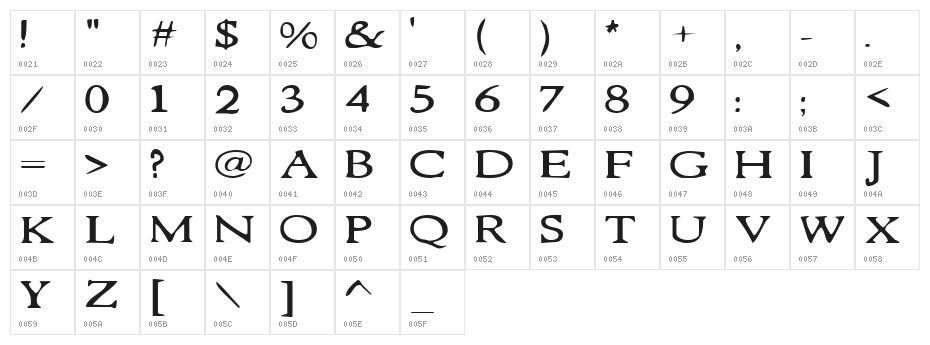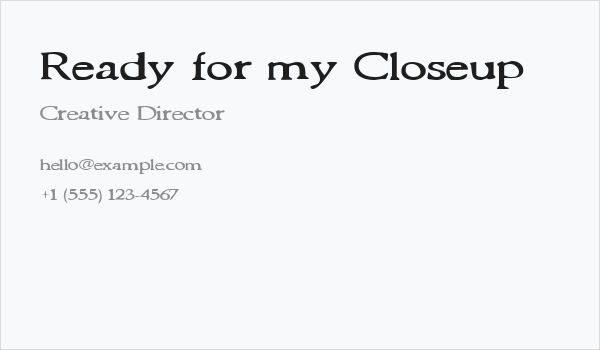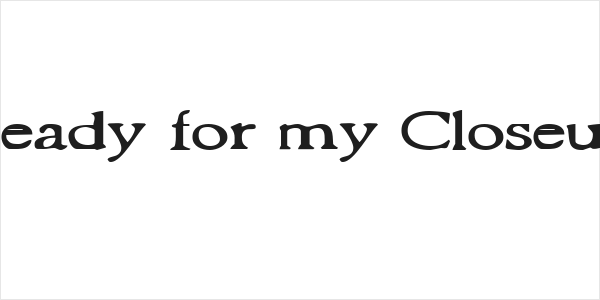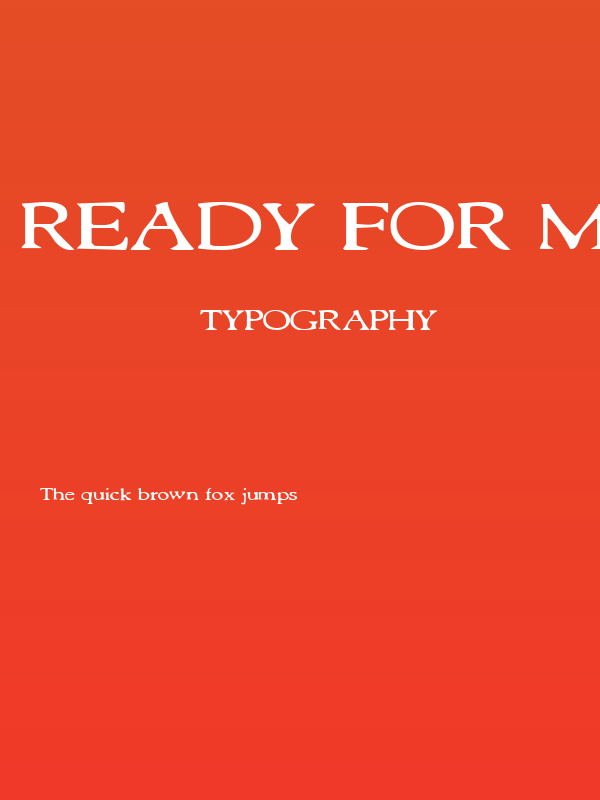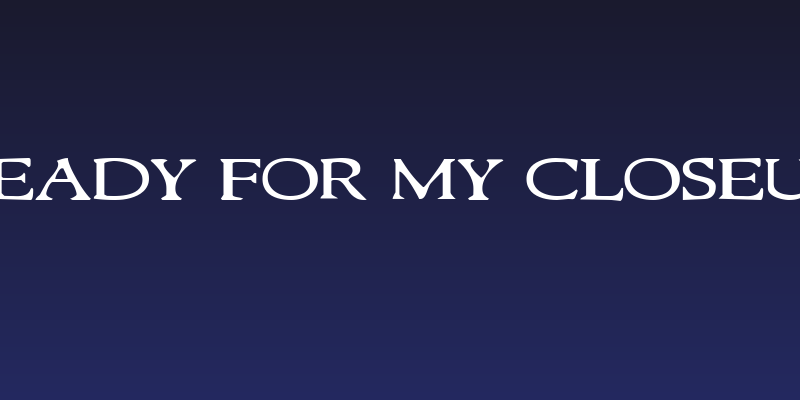
Ready for my Closeup Font
Ready for my Closeup Description
This font features a classic serif style with elegant and slightly exaggerated serifs that give it a sophisticated and timeless appearance. The uppercase letters are bold and commanding, while the lowercase letters maintain a consistent flow with rounded edges and a balanced structure. The numerals are distinct and clear, complementing the overall design with a touch of traditional flair. Special characters are well-integrated, maintaining the font's cohesive aesthetic. The font's design is both versatile and distinctive, making it suitable for a variety of applications where a touch of elegance is desired.
| Use Case | Headlines, Logos, Editorial design |
| Proposed Projects | Ideal for book covers, formal invitations, branding materials, and editorial design. |